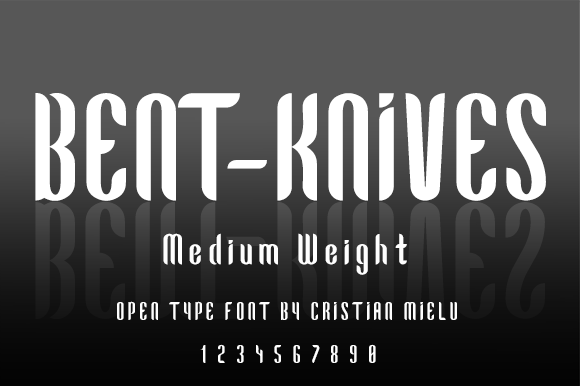
The Designer’s Delight: Bent-Knives Font
So, what makes Bent-Knives font so special? Here are a few things I absolutely love about it:
- ✨ Unique and original design: Bent-Knives font stands out from the crowd with its bold and quirky style.
- ✅ Medium weight: It’s perfect for display purposes, and its medium weight makes it easy to read.
- 💥 Attention-grabbing: This font is sure to make your projects stand out, whether it’s a poster, a logo, or a social media graphic.
Of course, no font is perfect, and here are a few small quirks to keep in mind:
- 🤔 Limited use cases: Due to its bold and quirky nature, Bent-Knives font might not be the best choice for body text or more formal designs.
- ⚠️ Glyph limitations: While the font has a range of glyphs, it might not have every special character or symbol you need.
One of the best things about Bent-Knives font is its range of OpenType features and glyphs. Here are a few tips for getting the most out of these features:
- Stylistic alternates: Experiment with different stylistic alternates to add some visual interest to your text.
The Designer Inspiration Behind Bent-Knives Font
Rumor has it that Bent-Knives font was inspired by the designer’s love of vintage knives and rustic craftsmanship. The font’s bold, quirky style is meant to evoke a sense of rugged individuality and playfulness.
| Font Name | Bent-Knives Font |
| Author | mielucristian |
| What is the best use case for Bent-Knives font? | Display purposes, such as headlines, posters, and logos. |
| Is Bent-Knives font suitable for body text? | Not recommended, due to its bold and quirky nature. |